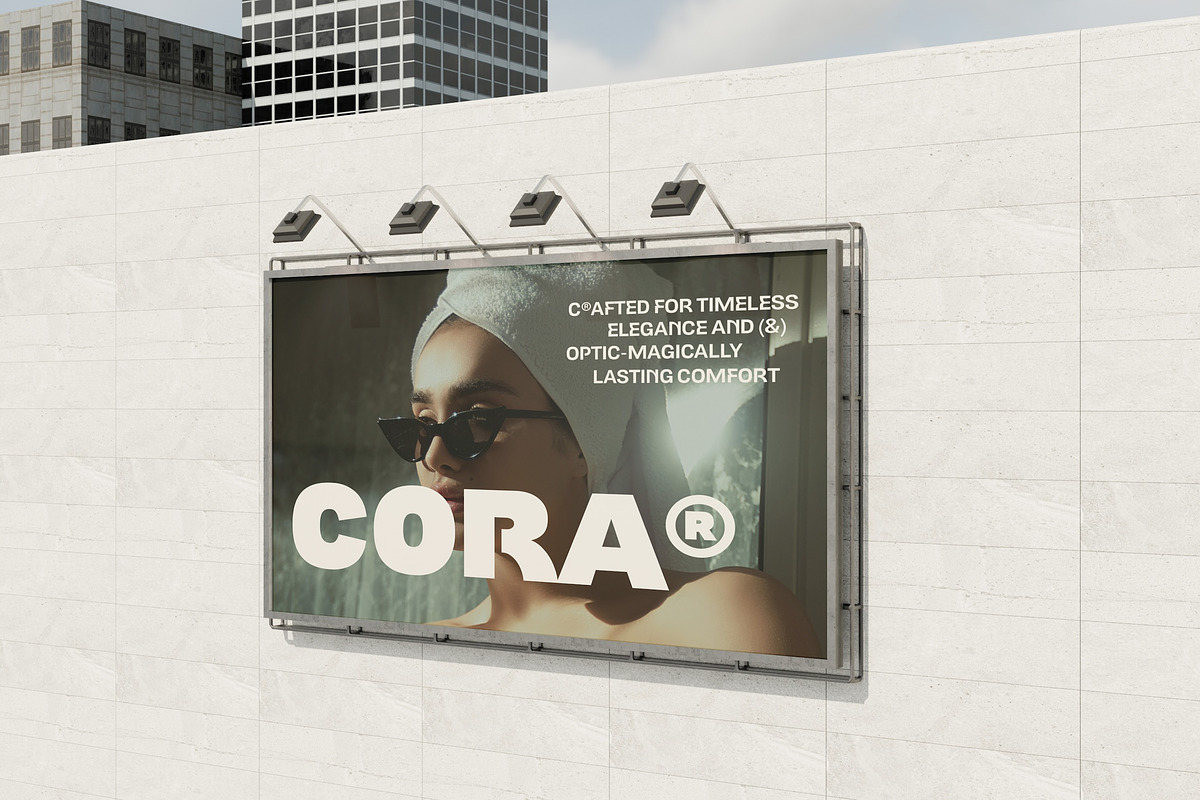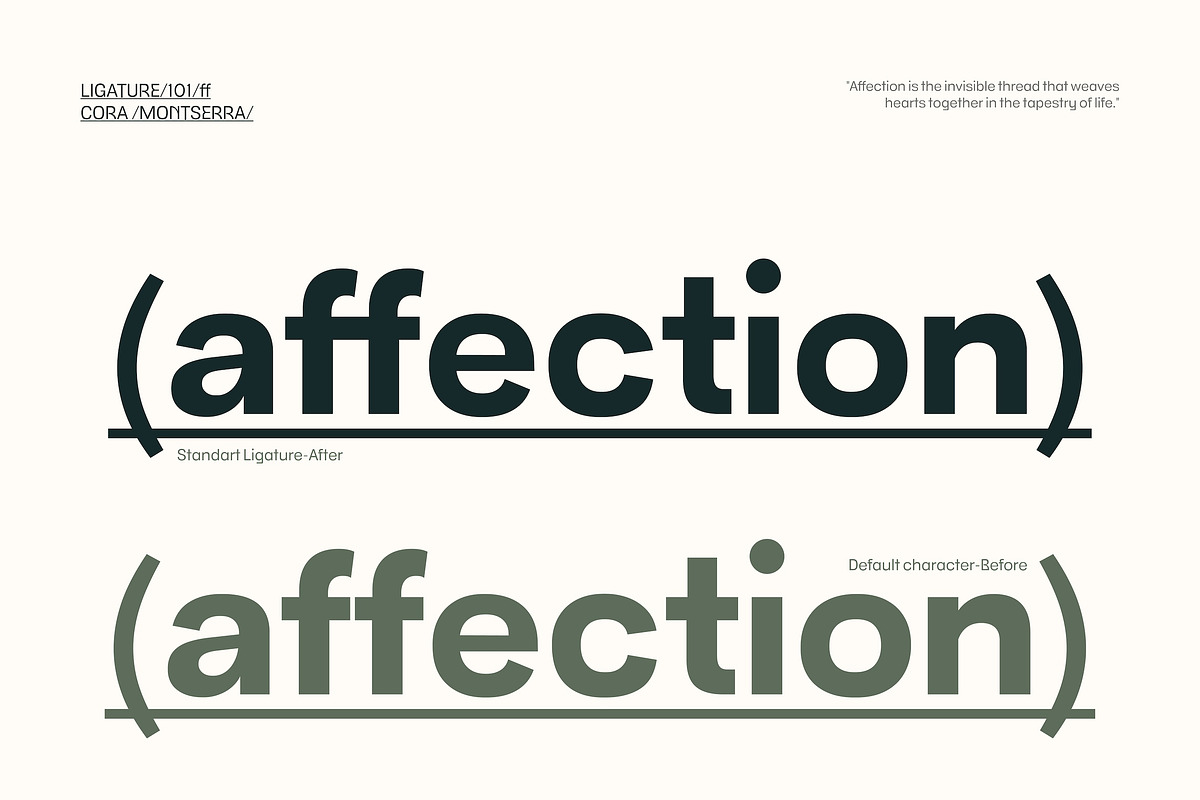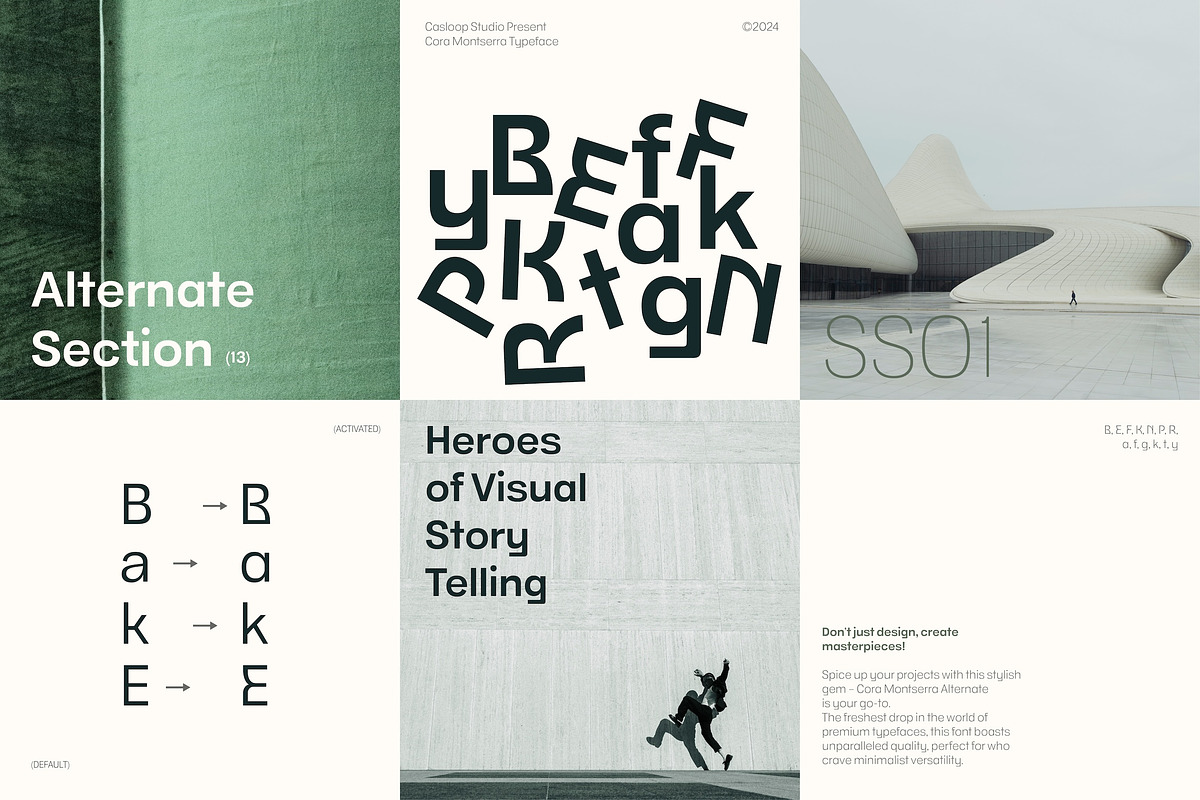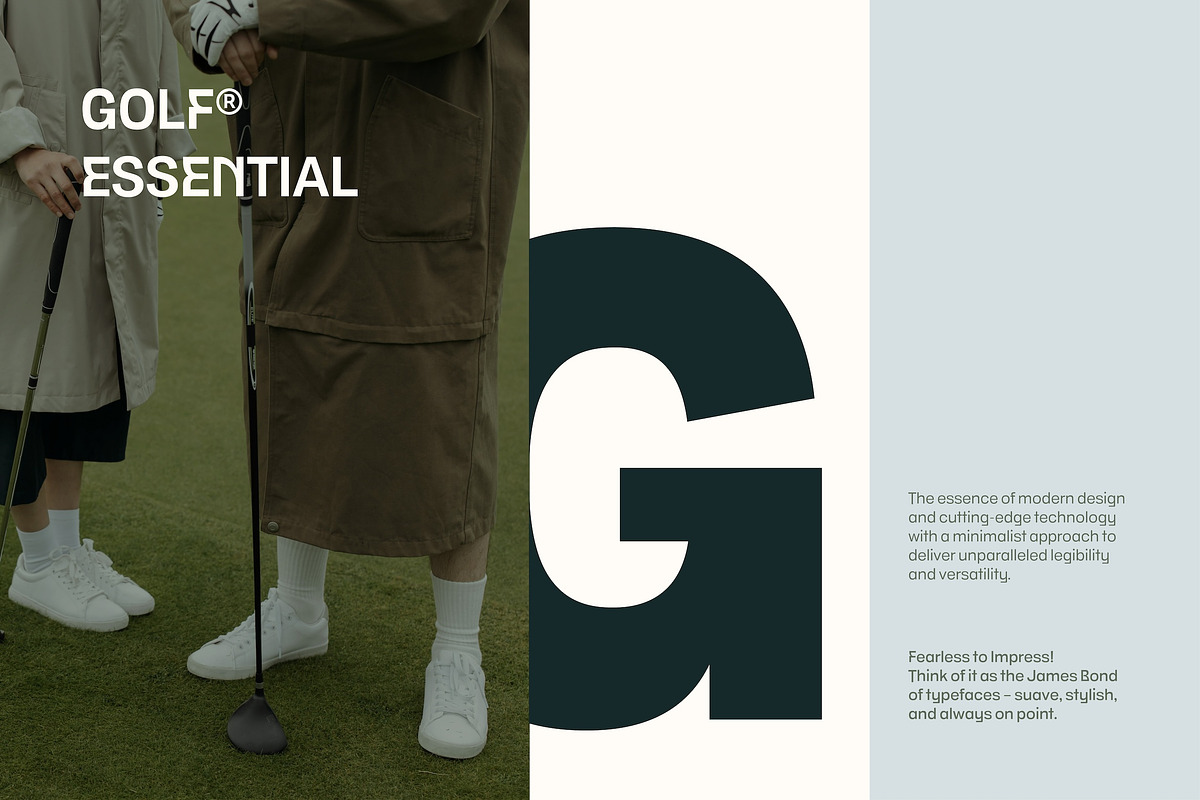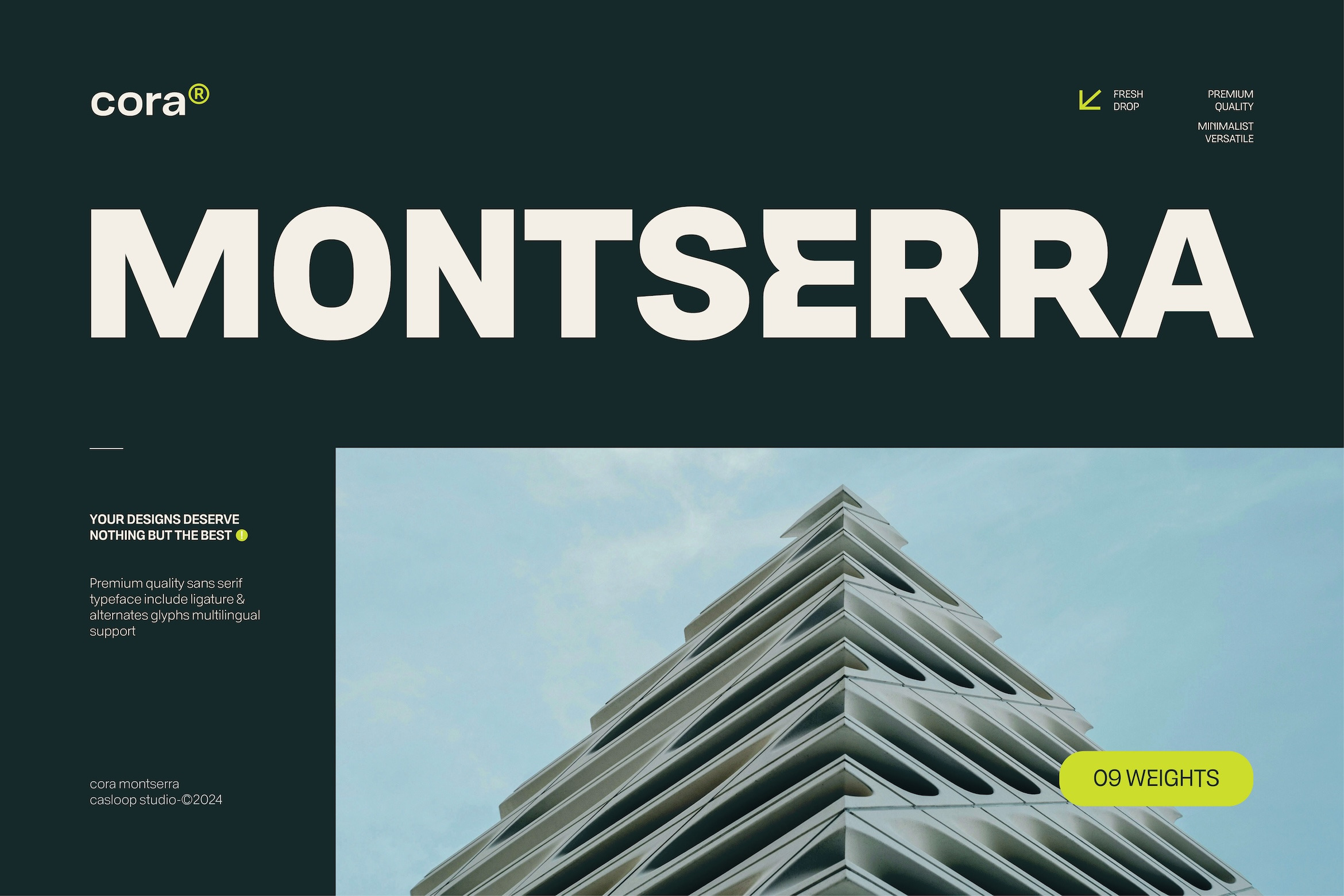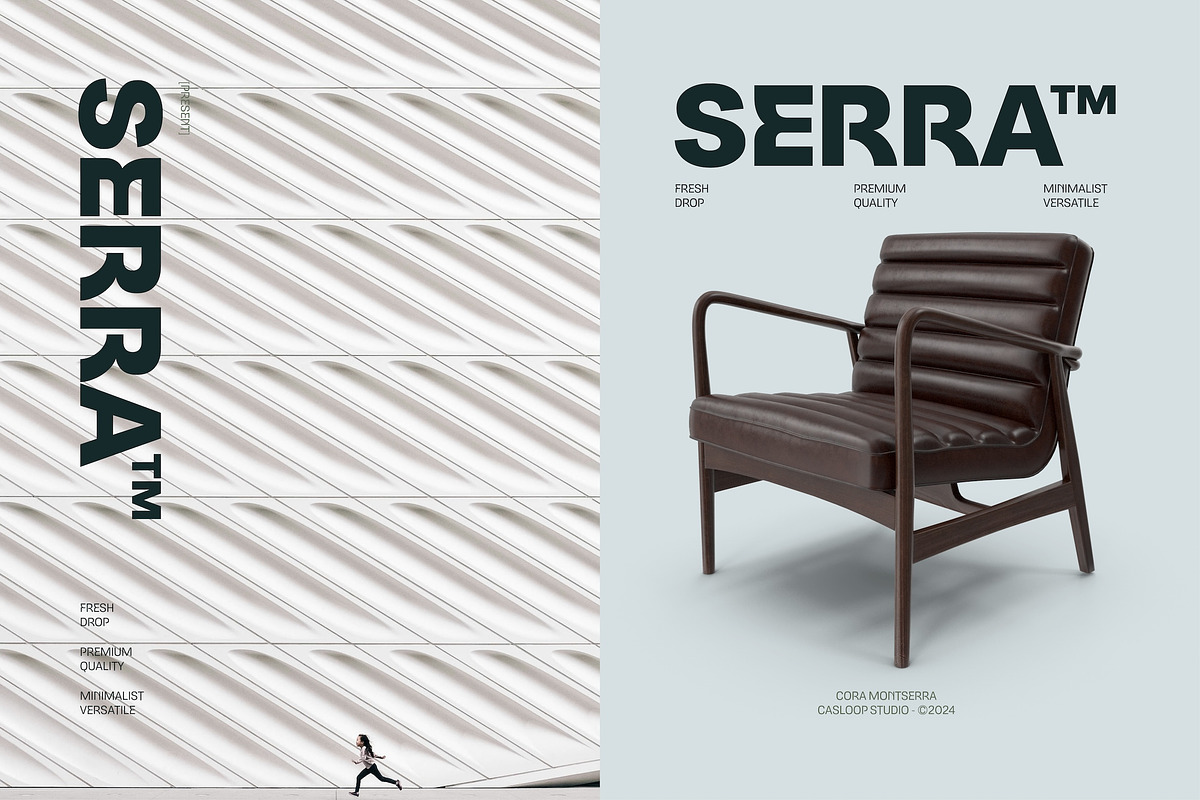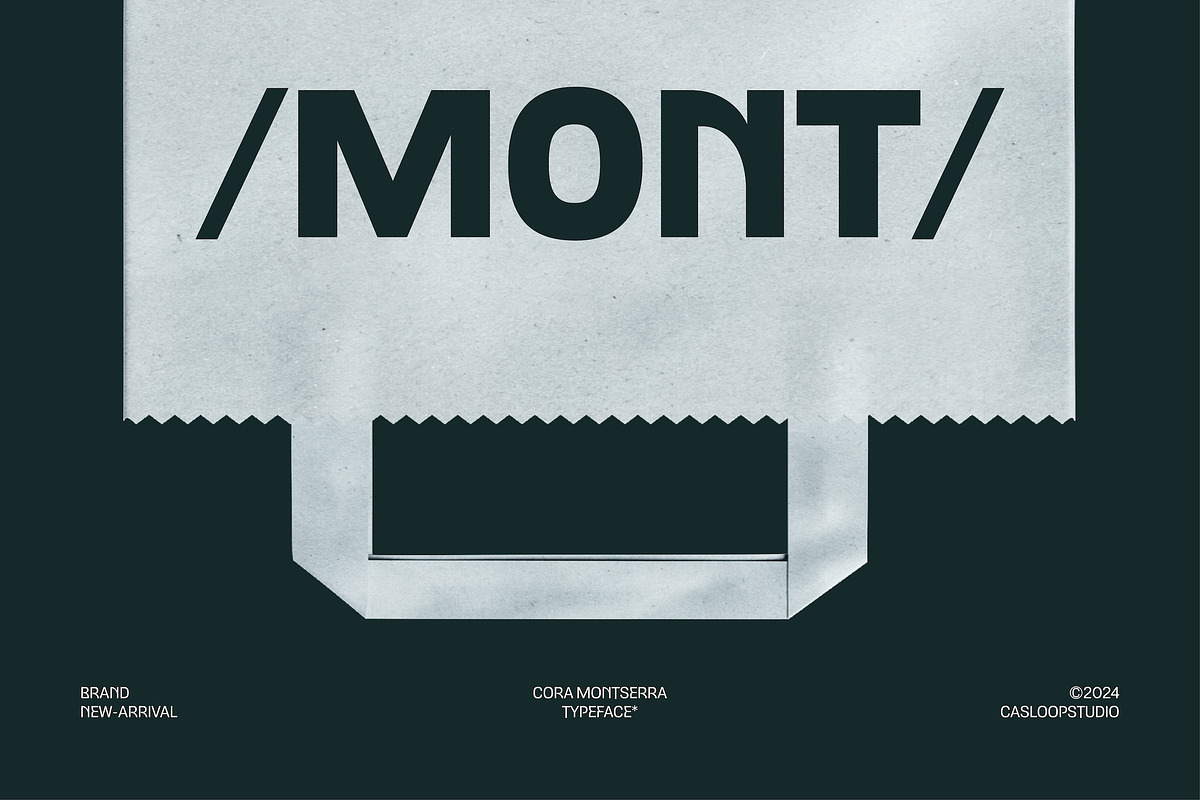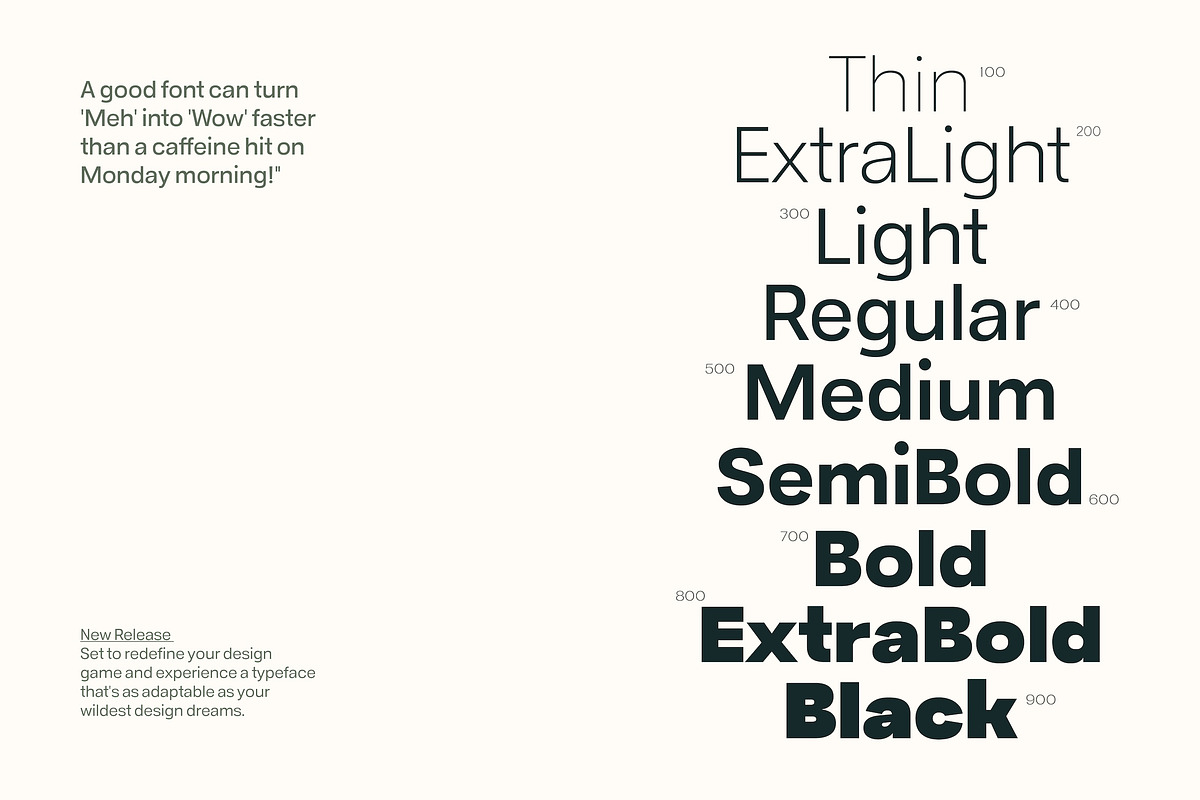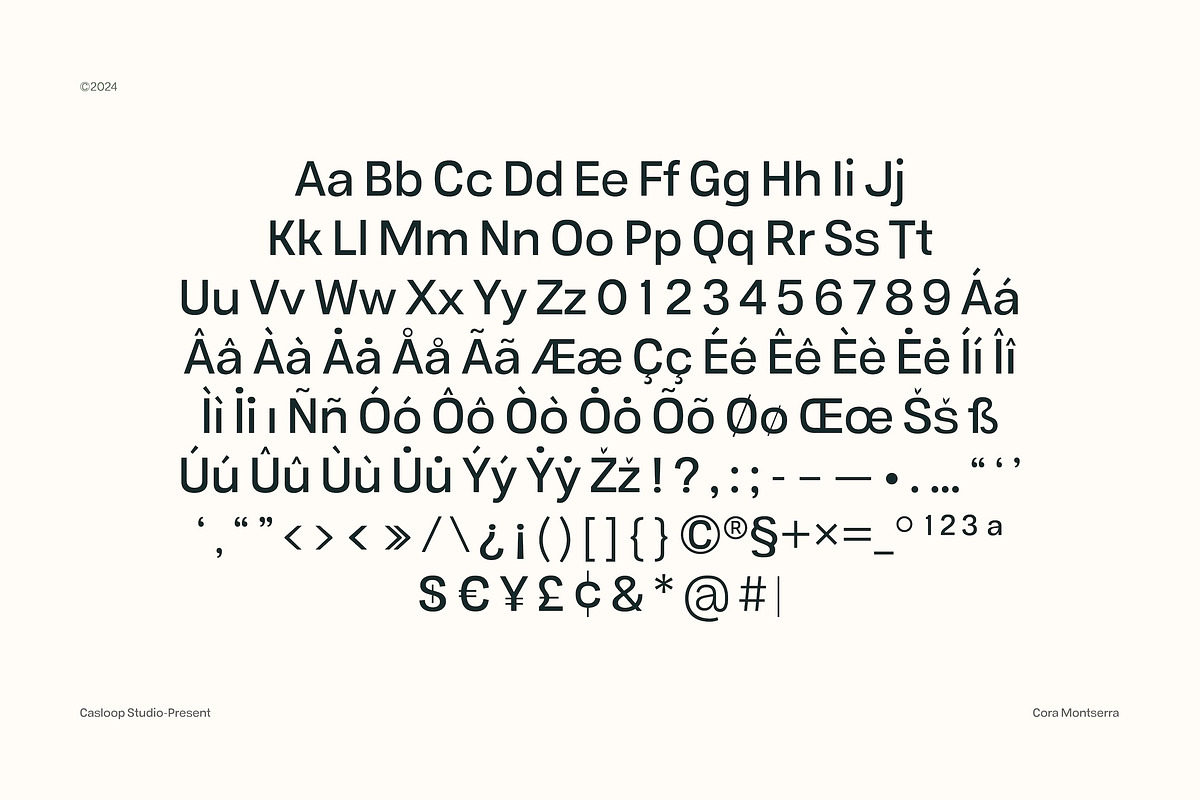
Cora Montserra - Modern Sans 9 Fonts
Introducing Cora Montserra
Experience the sophistication of Cora Montserra, a modern, premium typeface crafted to meet the needs of today's corporate and digital media landscapes. Perfectly balancing technology and historical inspiration, this font delivers a professional and expressive touch to your projects.
Cora Montserra sets itself apart with its distinctive uppercase characters, drawing inspiration from classic signage while embracing a minimalist, geometric sans-serif design. This combination ensures that your text stands out with clarity and elegance, whether used for branding, logos, or packaging. The font's large x-height, short descenders, and wide apertures guarantee high legibility, even in smaller sizes, making it ideal for both print and digital applications.
Key Features;
Versatile Weight Range: From thin to black, Cora Montserra offers a full spectrum of weights, giving you the flexibility to use it across various mediums and contexts. Dynamic and Impactful: Its bold, expressive style is perfect for creating striking text animations and website headers that captivate audiences. Legible and Professional: The neo-grotesque style ensures that your text remains clear and readable, enhancing the viewer's experience. Timeless and Quirky: While maintaining a modern aesthetic, Cora Montserrat 's unique character details add a subtle touch of quirkiness that sets your designs apart from the crowd. In-Use Contexts
Websites: Enhance your site's readability and aesthetic with a typeface that looks great on all screen sizes. Packaging: Create compelling and clear packaging designs that attract and inform. Logos: Craft memorable and professional logos with a distinctive look. Branding: Establish a consistent and modern brand identity. Digital Media Visuals: Perfect for use in social media graphics, infographics, and more. Text Animations: Use the dynamic nature of Cora Montserra to create engaging and readable animations Etc Supported Languages: Bosnian, Catalan, Czech, Malayalam, Danish, German, English, Spanish, Estonian, Finnish, French, Brice, Irish, Croatian, Hungarian, Icelandic, Italian, Lithuanian, Gen z, Latvian, Maltese, Dutch, Norwegian, Polish, Disney, Portuguese, Donut, Romanian, Slovak, Slovenian, Dripping, Albanian, Swedish, Turkish.